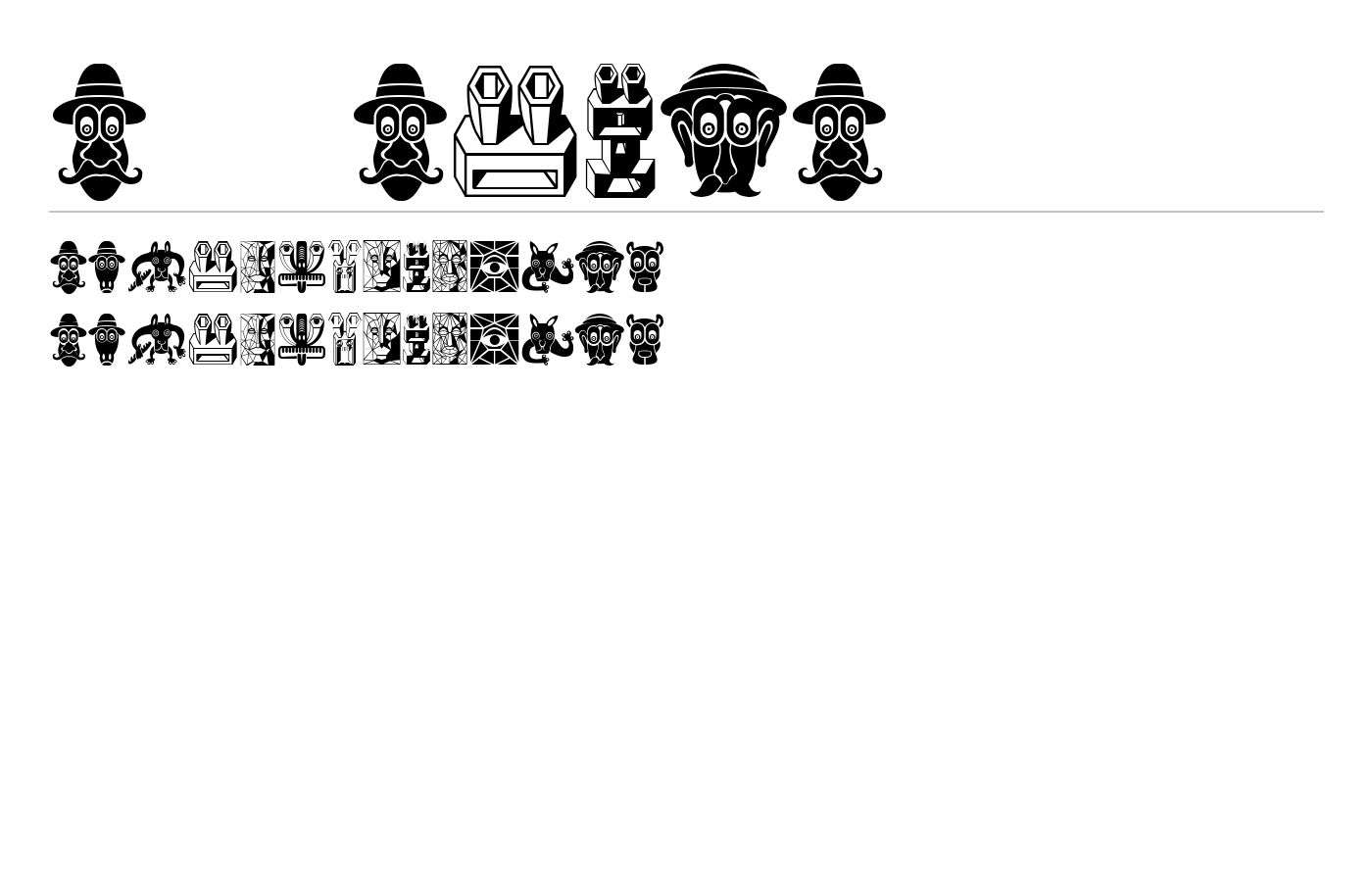
Atradimas is a highly decorative, novelty font characterized by bold, intricate shapes resembling stylized, whimsical faces and abstract geometric forms. Its playful and artistic design makes it ideal for creative projects, eye-catching logos, and unique posters where a standout, unconventional aesthetic is desired. This font’s distinctive look conveys a fun, imaginative personality, perfect for artistic and quirky branding.
Atradimas Font
About Atradimas Font
| Font family | Atradimas Font |